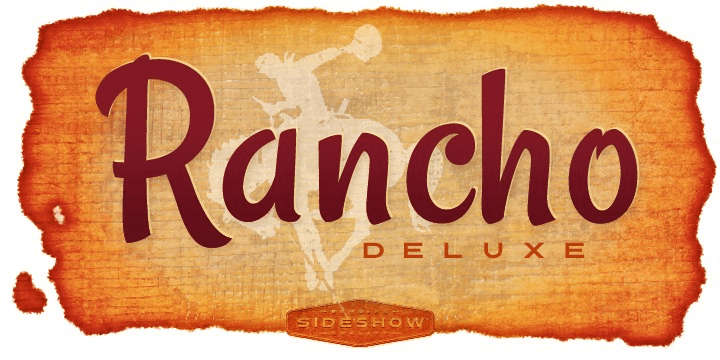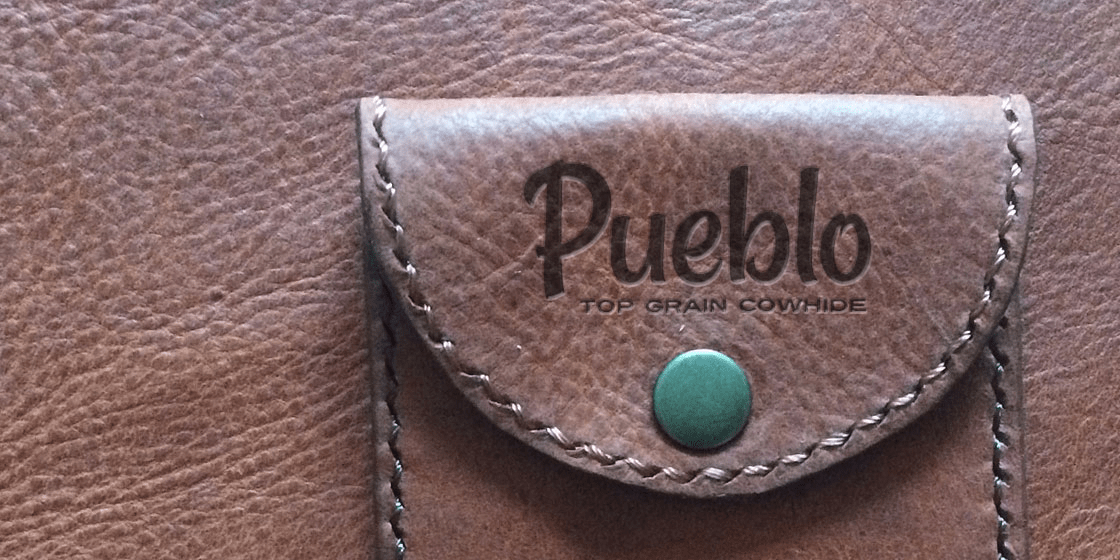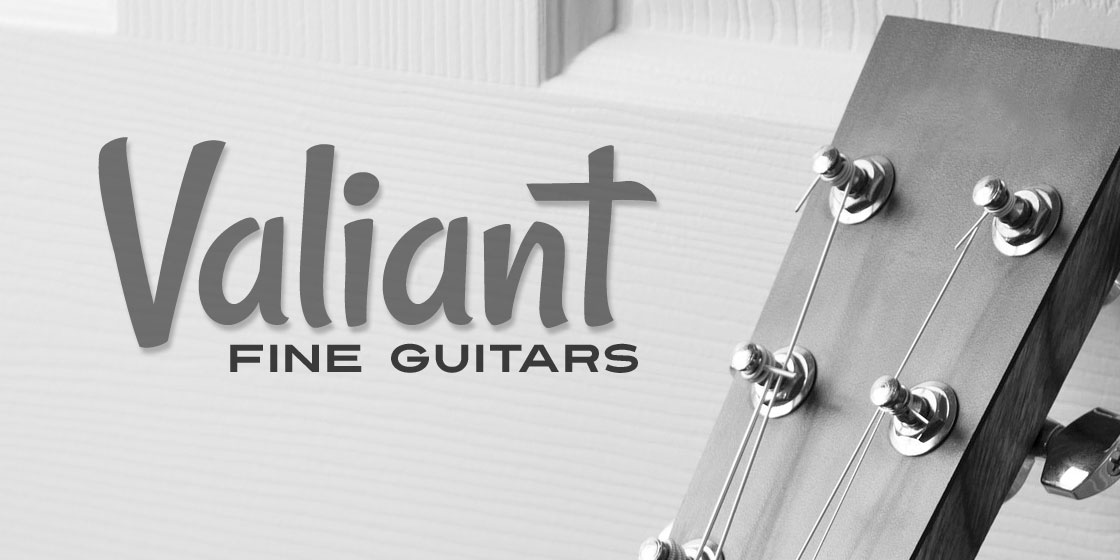
Rancho Deluxe
Font Family by Sideshow
Howdy pardner! Need a little southwest flair in your type trunk? Well Squid and Sideshow have a brush (sagebrush, that is) script they've branded Rancho Deluxe that'll do the trick. Its as comfortable as your favorite dungarees and works just as well in the barn or at the country club. Buy it now and saddle up for action!
This Deluxe version has been expanded and enhanced with more characters and dynamic OpenType features!